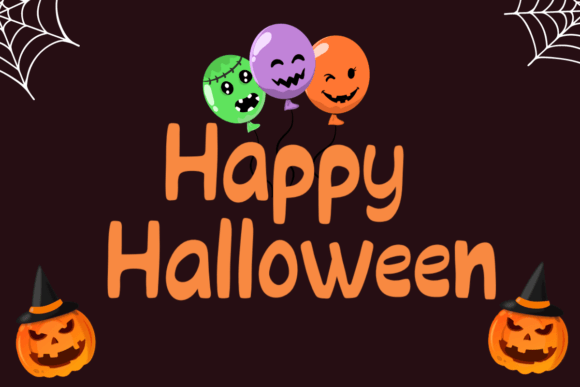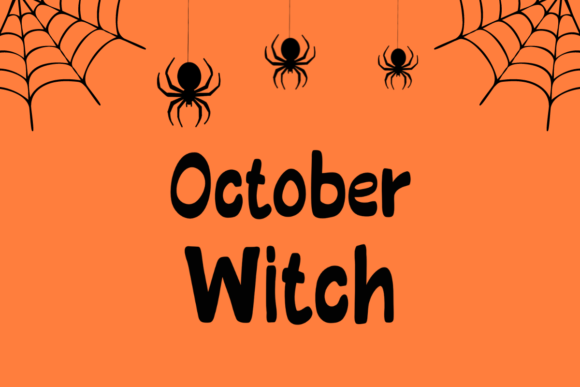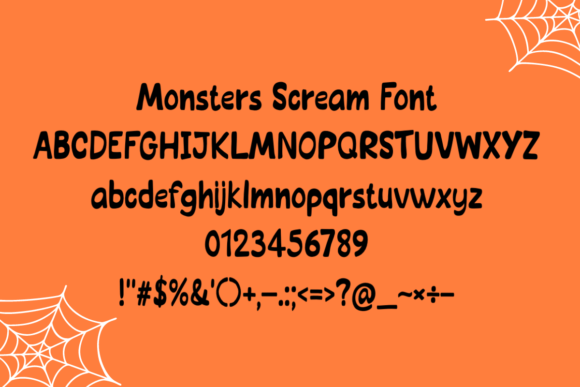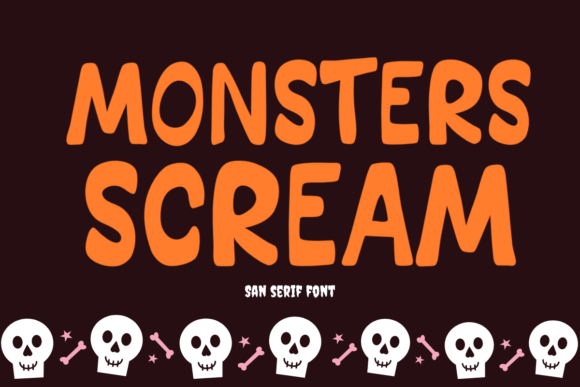
Introduction to Monsters Scream Font
MONSTERS SCREAM Font is a chilling and atmospheric sans serif typeface that captures the essence of the Halloween season.
With its bold and sharp letterforms, this font evokes a sense of mystery and spookiness Perfect for party invitations, haunted house flyers, and eerie designs, MONSTERS SCREAM Font sets the stage for a hauntingly good time, sending shivers down your spine.
Key Features of Monsters Scream Font
Why Choose Monsters Scream Font?
Monsters Scream Font offers exceptional quality and versatility, making it a valuable addition to your design toolkit. Whether you’re creating for personal projects or commercial use, Monsters Scream Font delivers professional results.